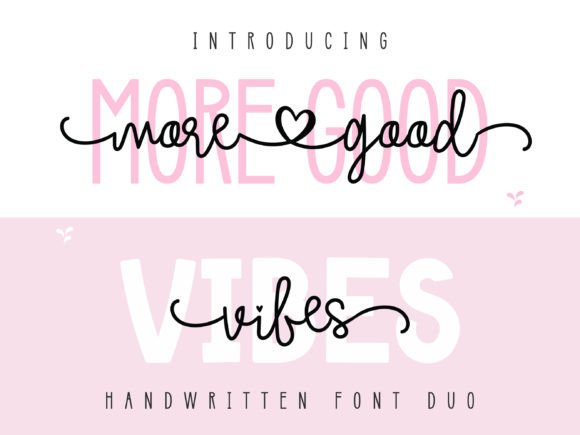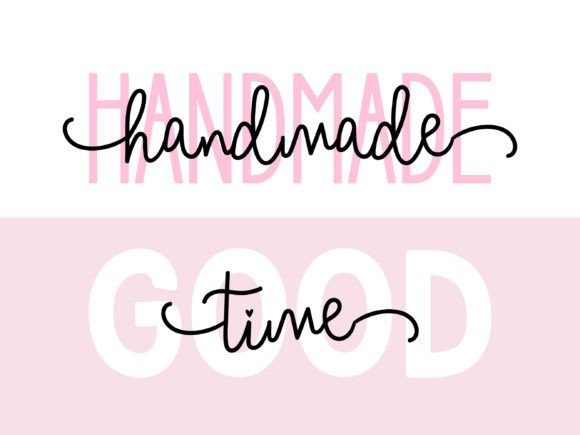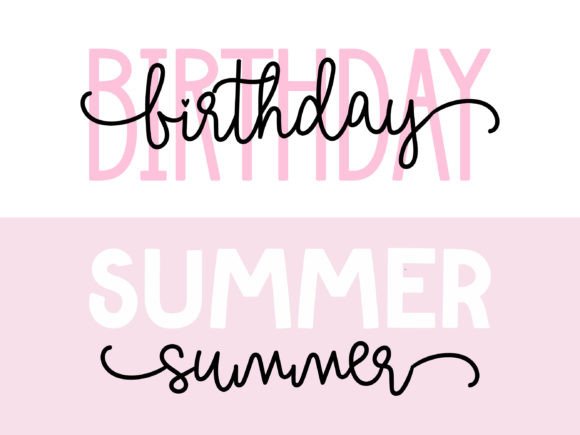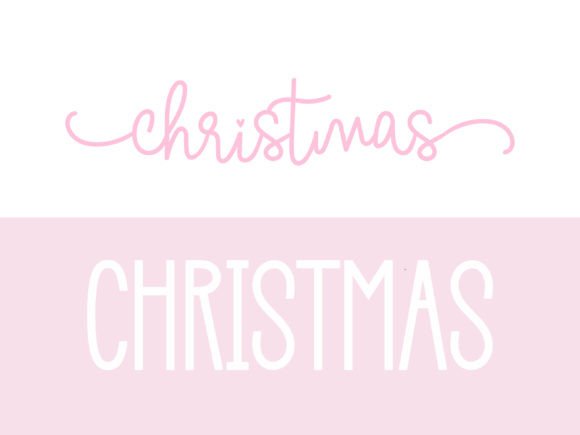
More Good Vibes Duo Font
Get ready to be inspired by More Good Vibes Duo Font, a fresh and dynamic typeface for modern creators. More good vibes is a cute and lovely handwritten font duo (script and sans). Incredibly versatile, this font fits designs, elevating them to the highest levels. Dream Wish duo includes single line script font (with swash). Add this font to your favorite creative ideas.
More Good Vibes Duo Font’s playful script and sans-serif pair work best for branding projects needing a friendly, approachable feel, particularly logos, short headlines, and social media graphics. It’s also ideal for packaging designs for products targeting a younger demographic or those with a lighthearted, optimistic brand identity. Avoid using it for large blocks of body text or UI elements where readability is paramount; the script’s delicate nature compromises legibility in smaller sizes.
For optimal pairings, consider a geometric sans-serif like Montserrat for a modern contrast or a clean serif like Playfair Display for a touch of classic elegance. These pairings balance the hand-drawn informality of More Good Vibes, creating a sophisticated yet approachable aesthetic.
The font’s core personality is undeniably cheerful and youthful, making it unsuitable for projects requiring seriousness or formality. Its hand-drawn quality lends itself perfectly to projects emphasizing warmth and personality.